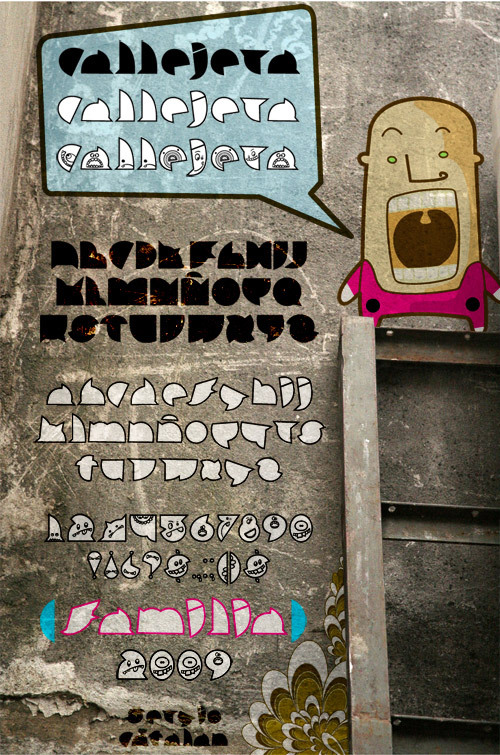
Callejera Carona-Carona by Sergio Catalan A. is a free cartoon display font built from crooked, creature-like letters. Rounded outlines, wedge shapes, and uneven proportions make the forms resemble a cast of little monsters. Many letters contain staring eyes or rows of tiny teeth.
Monster stories and comic mischief suit this lettering, especially in children's games and activity books. It can turn snack packaging or party posters into a procession of funny faces. The mouths and peering eyes let each letter function as a small illustrated character.
The font consists of three variants.